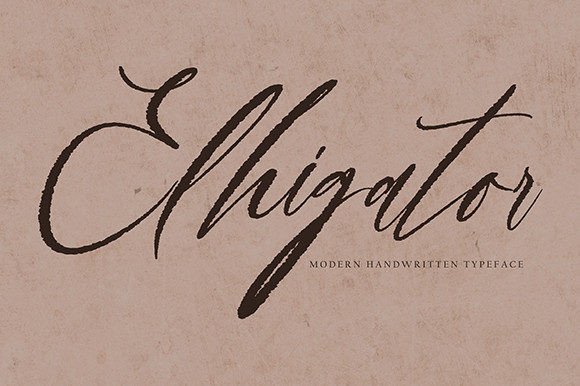
Step into the world of Elhigator Script, a font so graceful and elegant, it dances across your screen like a symphony of ink. Its flowing lines intertwine like lovers in a waltz, creating a visual masterpiece that captivates the senses. Each letter is a work of art, crafted with meticulous attention to detail, beckoning you to explore the world of sophisticated design.
With its undeniable charm and timeless allure, Elhigator Script is the perfect choice for those seeking a touch of refinement and luxury in their creative endeavors. This exquisite font adds an air of sophistication to wedding invitations, making them cherished keepsakes that radiate elegance. It gracefully adorns high-end branding projects, exuding a sense of prestige and exclusivity that leaves a lasting impression. The editorial world is transformed into a realm of literary enchantment as Elhigator Script weaves its magic through the pages, captivating readers with its enchanting presence.
Beyond its captivating aesthetics, Elhigator Script possesses a versatility that defies boundaries. Whether you're crafting heartfelt love letters, creating captivating social media posts, or designing eye-catching logos, this remarkable font seamlessly adapts to your creative vision. Its natural, handwritten feel brings a touch of authenticity and warmth to any project, making it ideal for personal branding, greeting cards, and heartfelt messages.
With Elhigator Script as your creative companion, you'll discover a world of limitless possibilities. Let your imagination soar as you explore the endless realms of design, knowing that this remarkable font will elevate your work to new heights of beauty and sophistication. Embrace the power of Elhigator Script and unlock a world of creative brilliance. Its timeless elegance will leave an indelible mark on everything you create, captivating hearts and igniting imaginations.